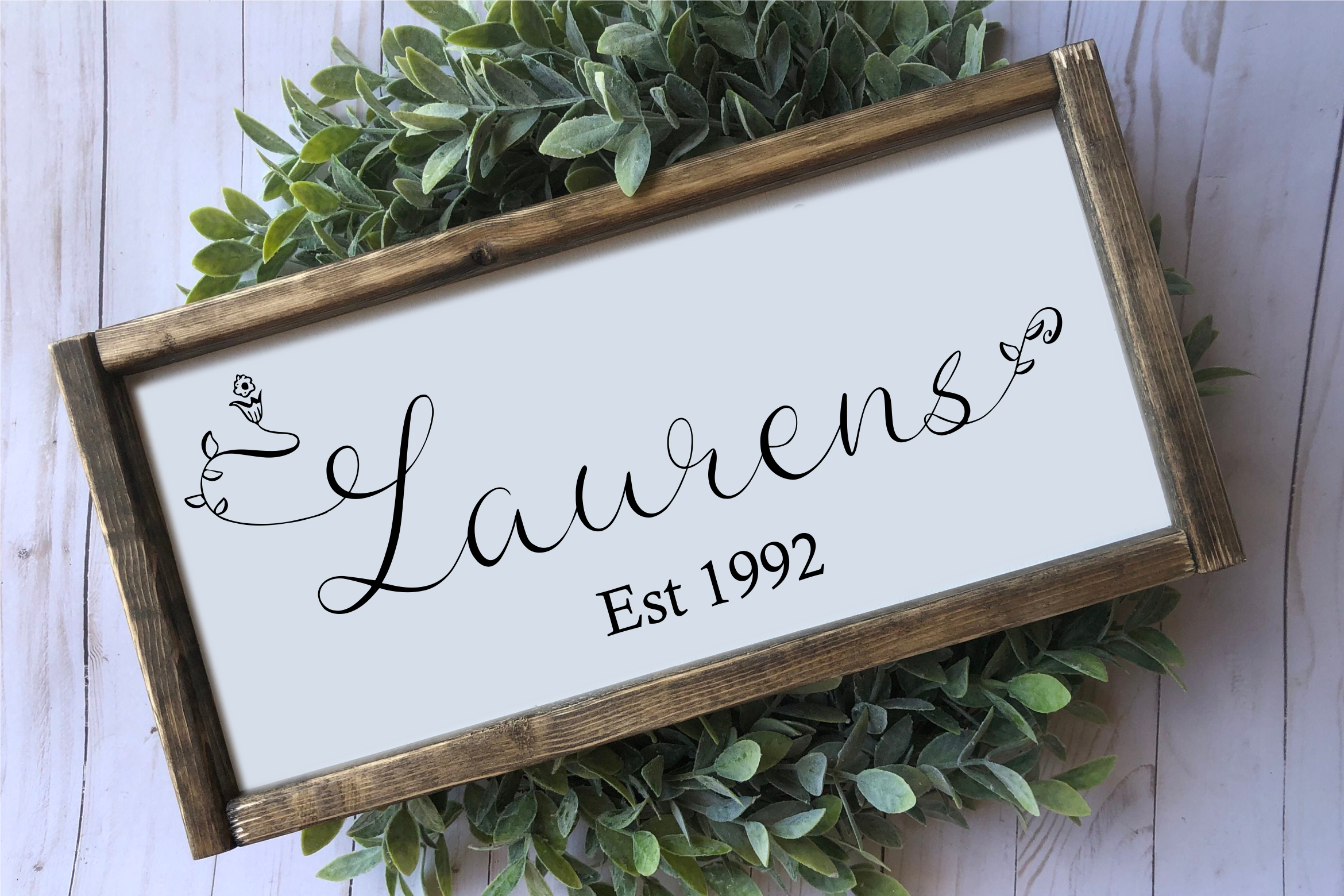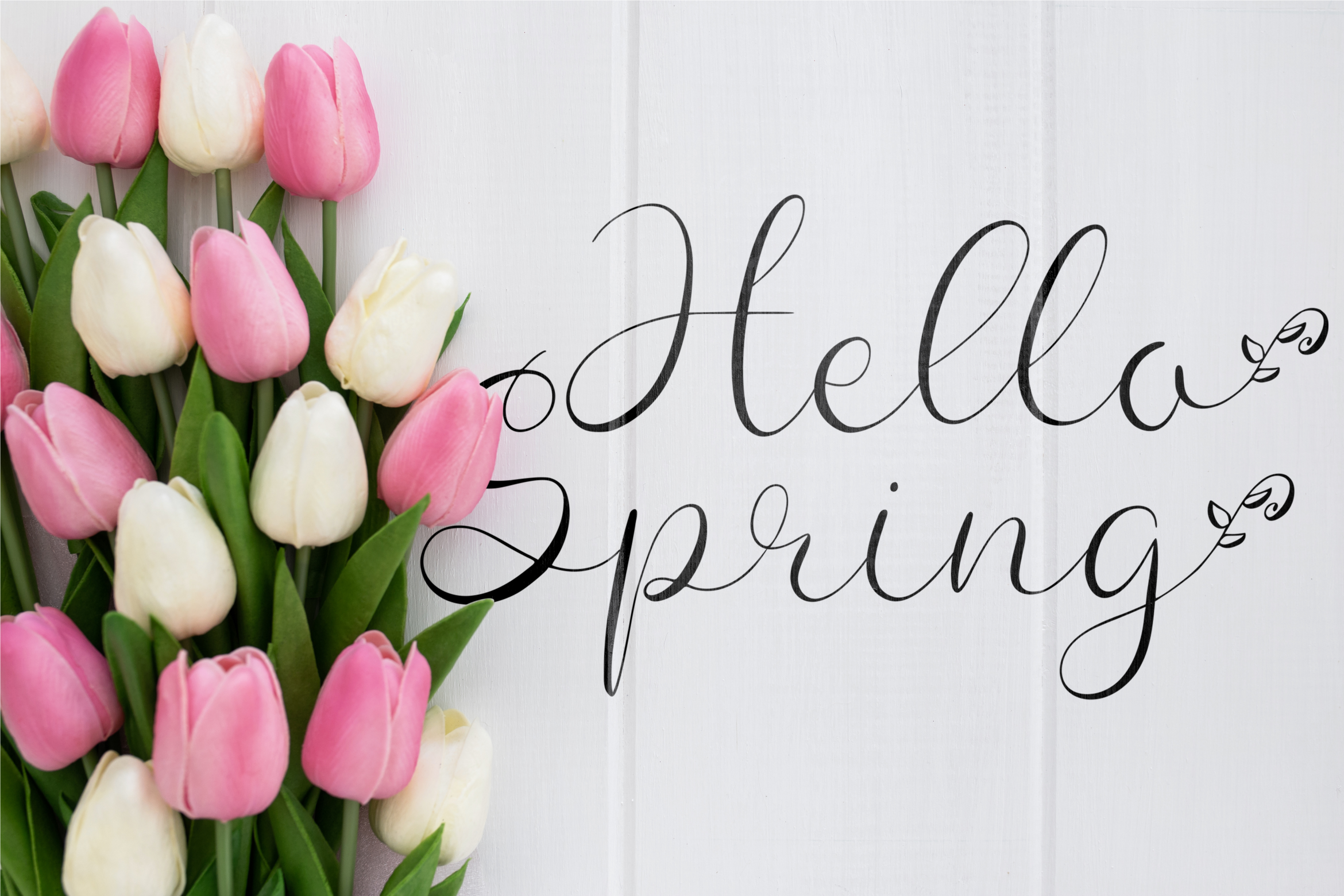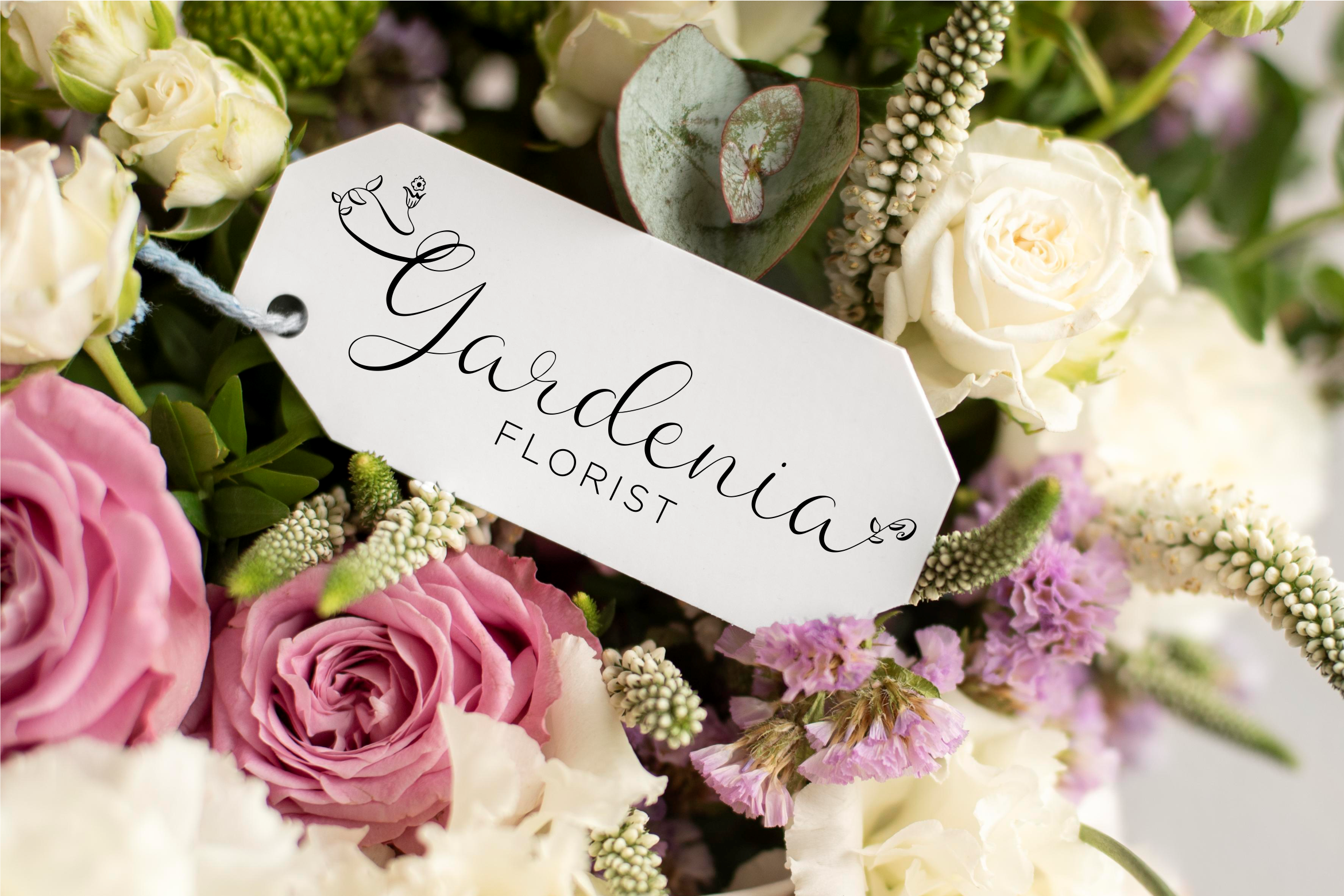
Leafdream Font
Leafdream Script Font
This is a delicate and chic handwritten font. It is perfect for product packaging, branding project, magazine, social media, wedding, or just used to express words above the background.